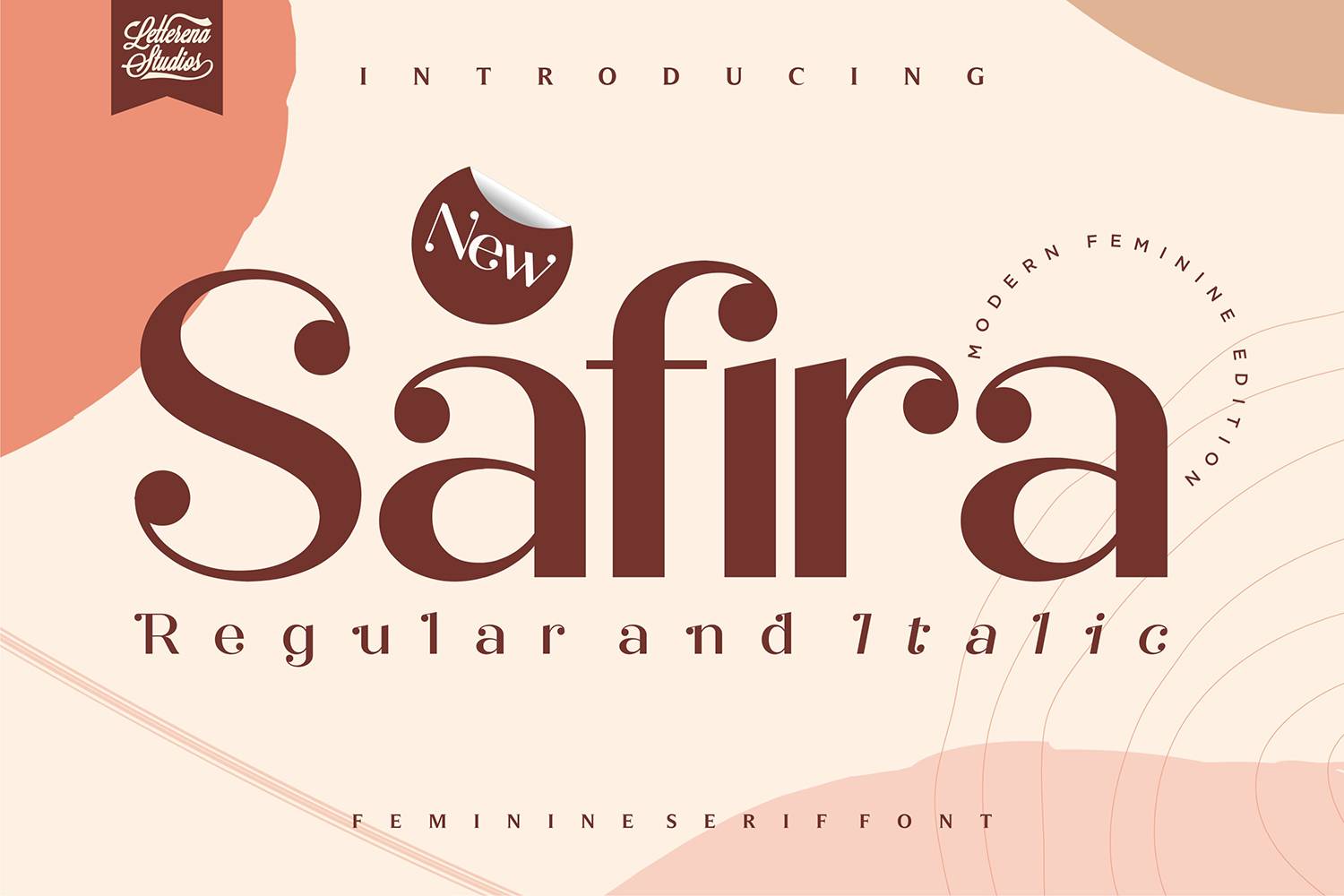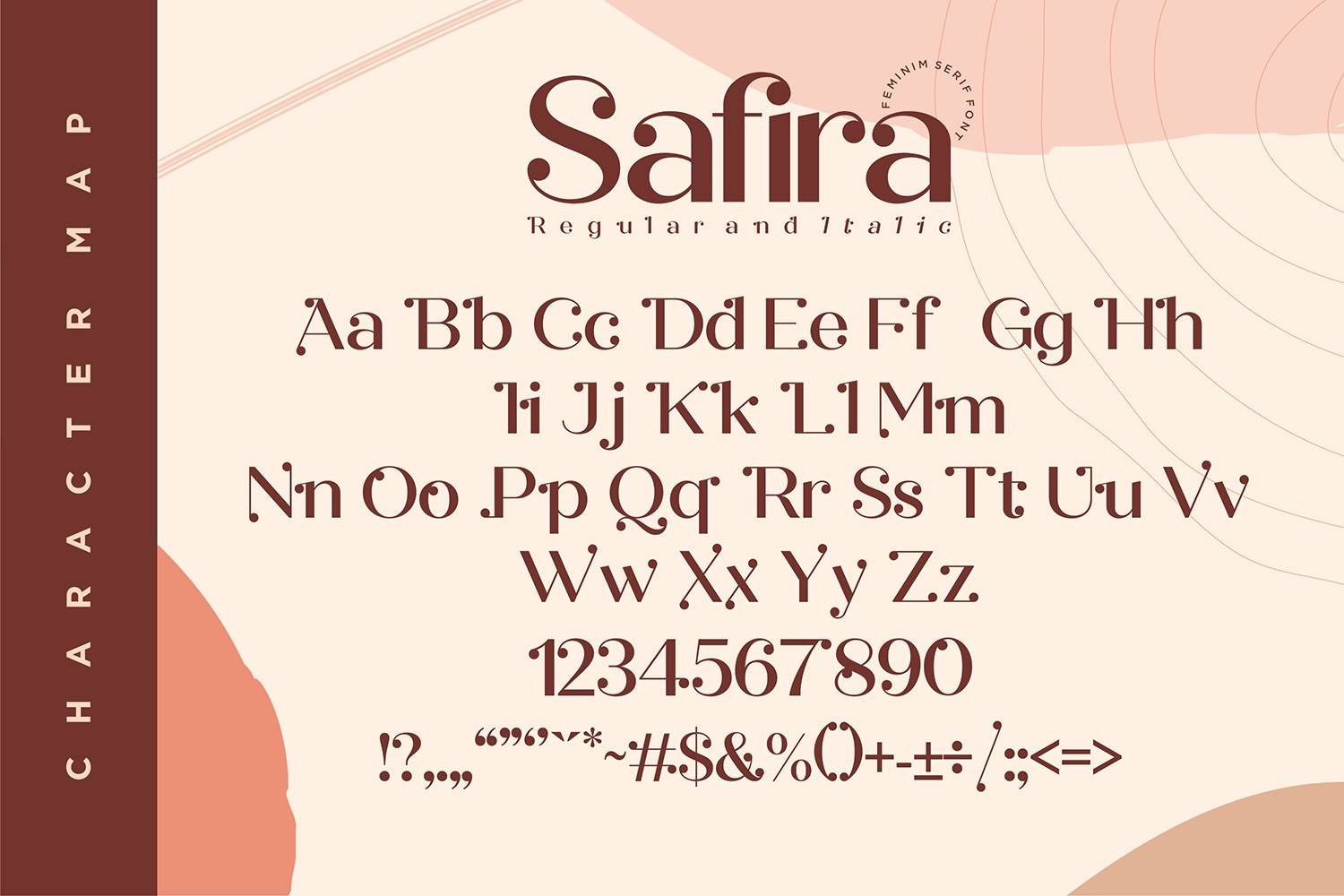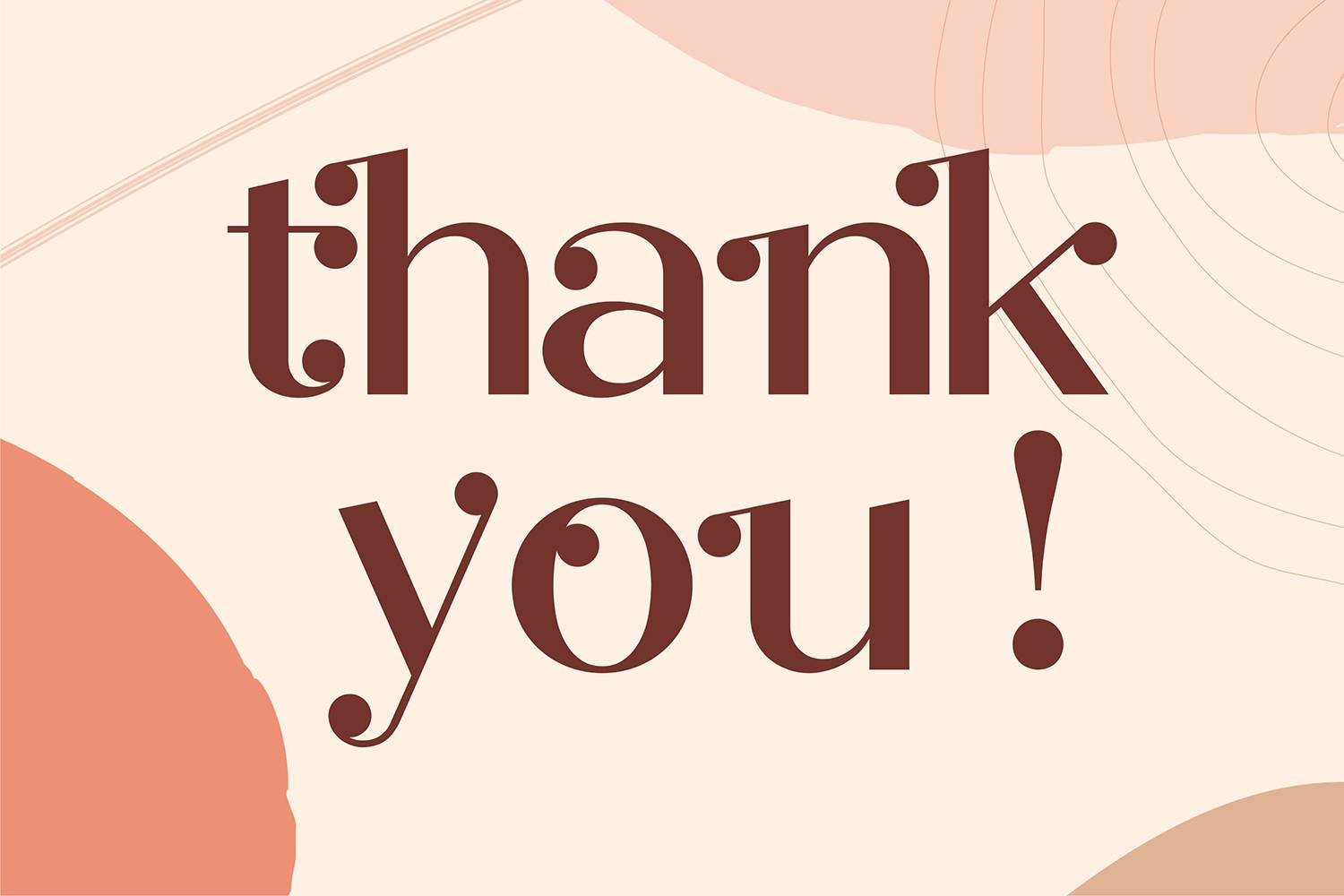
Safira is a modern serif font characterized by its high contrast between thick and thin strokes, elegant bracketed serifs, and distinctive decorative dots on terminals and stems. With its tall x-height and unique letterforms, it exudes a refined, artistic flair perfect for luxury branding, editorial design, and sophisticated headlines. This font blends classic serif elegance with contemporary style, making it ideal for projects that seek to convey creativity and upscale sophistication.
Safira Font
About Safira Font
| Font family | Safira Font |